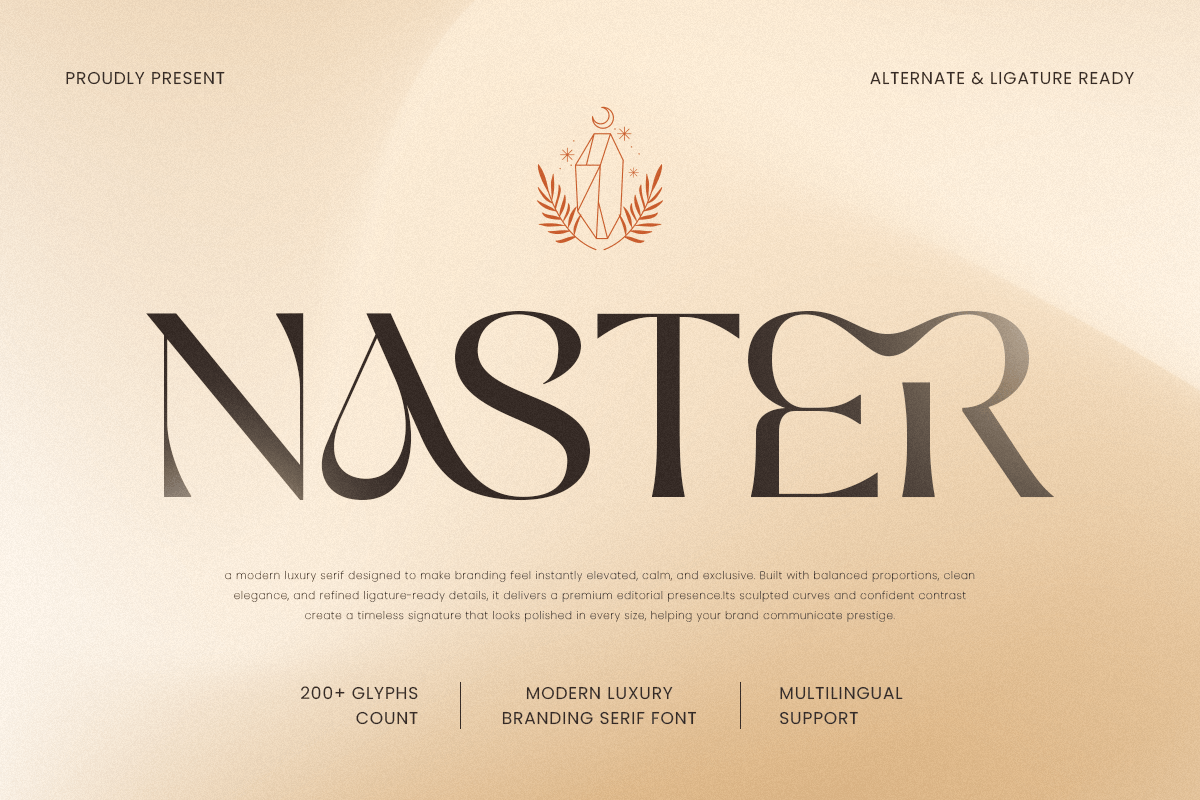
Naster
-Modern Classy Branding Serif FontNaster - Modern Classy Branding Serif Font
NASTER is a modern luxury branding serif font designed to deliver refined sophistication with a polished contemporary edge. Featuring graceful serif details, balanced proportions, and a confident premium rhythm, this typeface creates a visual tone that feels elegant, stylish, and instantly brand-ready.
Built for high-end branding and editorial typography, NASTER works beautifully across logos, wordmarks, brand identity systems, website headers, magazine layouts, packaging, labels, invitations, signage, presentations, and upscale marketing visuals. Its serif structure keeps every composition clean and readable while adding a luxurious presence across both digital and print design.
Whether you’re building a fashion identity, creating a beauty brand, designing premium packaging, or crafting an editorial concept with modern elegance, NASTER provides a sophisticated serif foundation that makes your typography feel timeless, polished, and unforgettable.
Inspiration Behind NASTER
NASTER is inspired by contemporary luxury branding and modern editorial typography—where elegant serif structure, visual balance, and premium clarity shape high-end communication. The design focuses on refined rhythm and stylish presence to support sophisticated identity systems with a timeless modern feel.
NASTER Font Features:
Modern luxury serif letterforms with refined branding character
Perfect for premium logos, wordmarks, and editorial headlines
Clean structure for elegant layouts and strong readability
Luxury logos, wordmarks, and premium brand identity systems
Fashion, beauty, skincare, fragrance, and boutique branding
Editorial layouts, magazine covers, lookbooks, and headline typography
Premium packaging, labels, invitations, and elegant stationery
Social media campaigns, websites, presentations, and marketing assets
Elevate your premium identity with NASTER—a modern luxury branding serif font built for timeless elegant impact. ✨